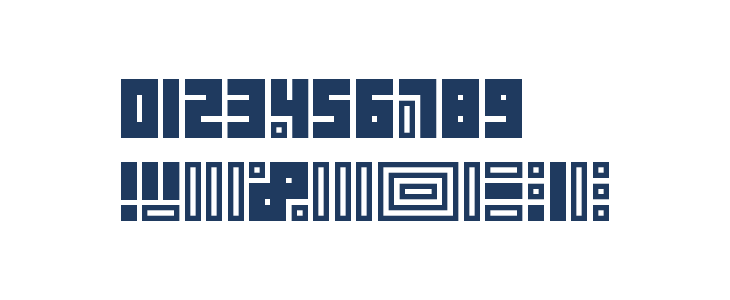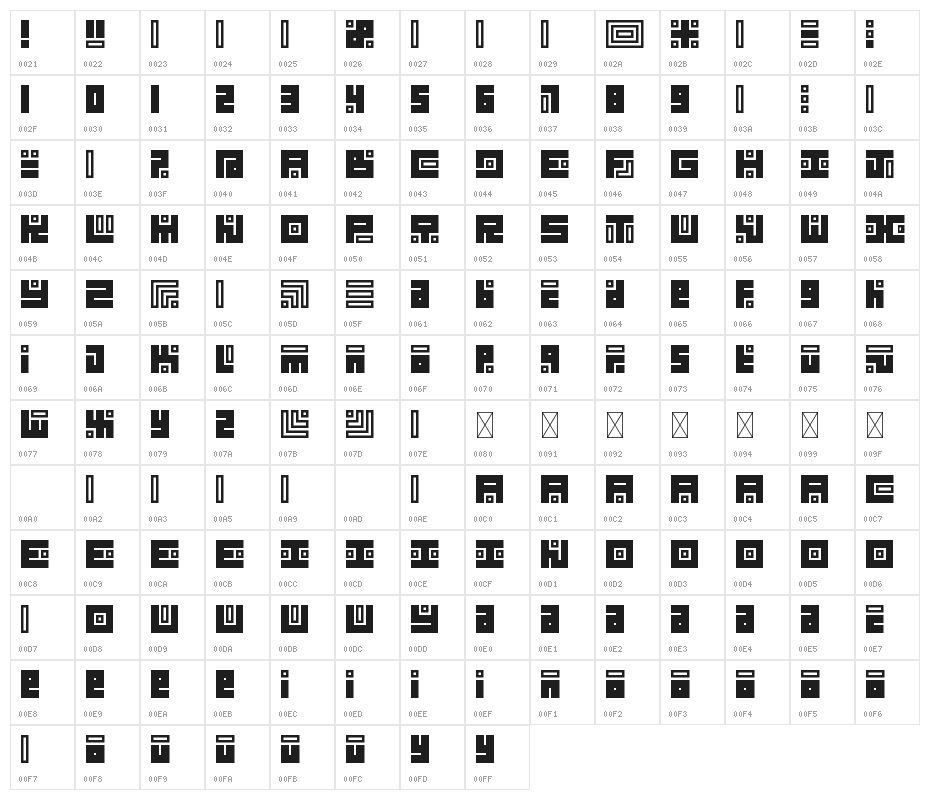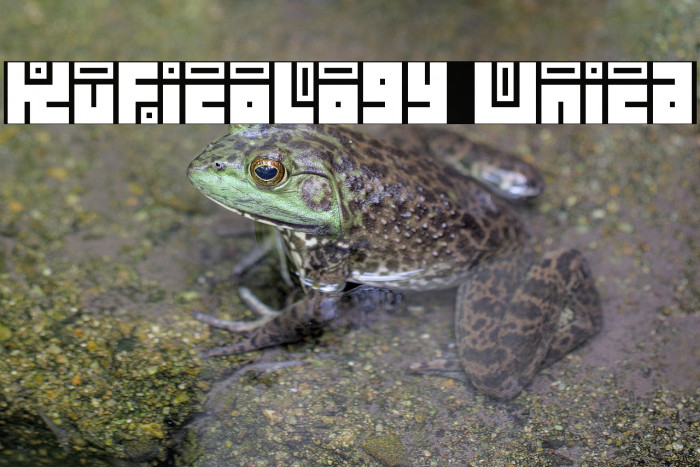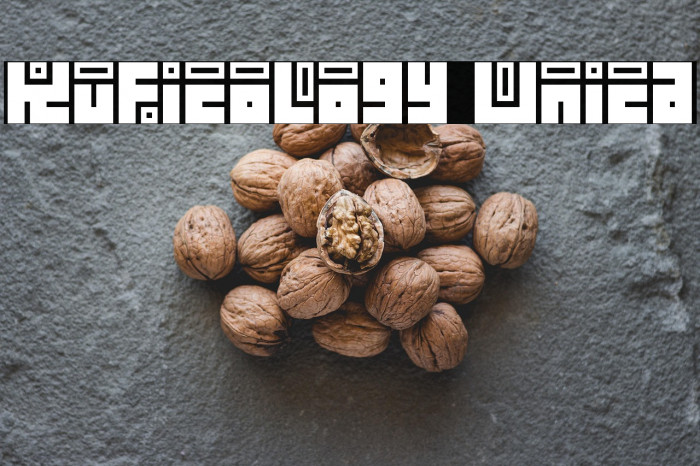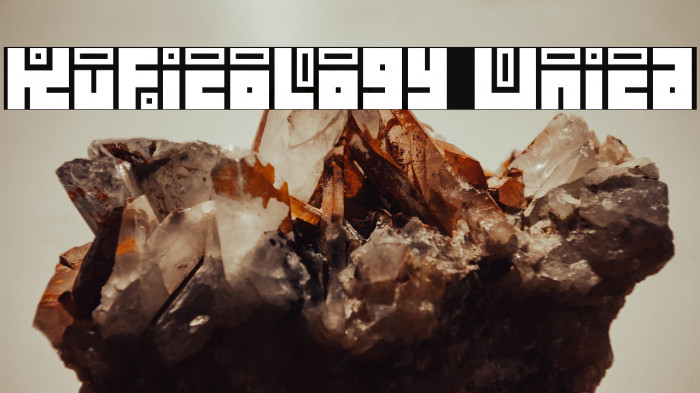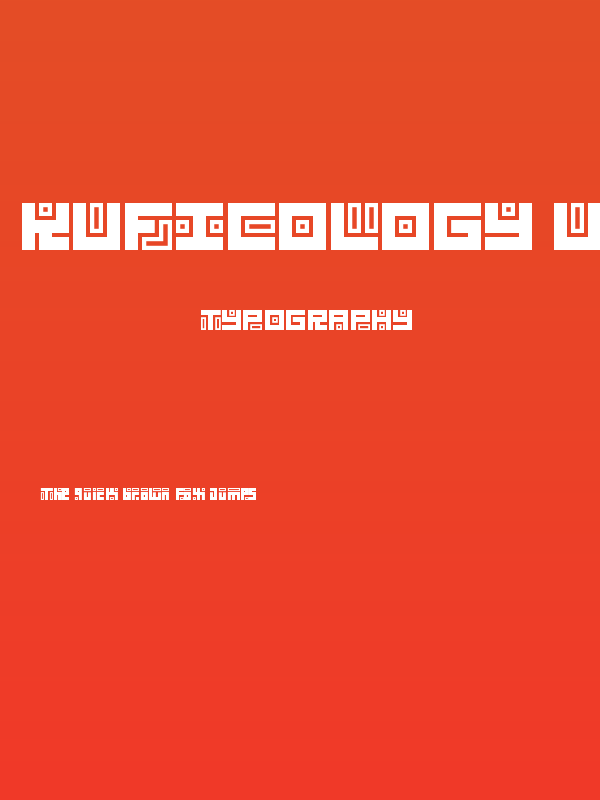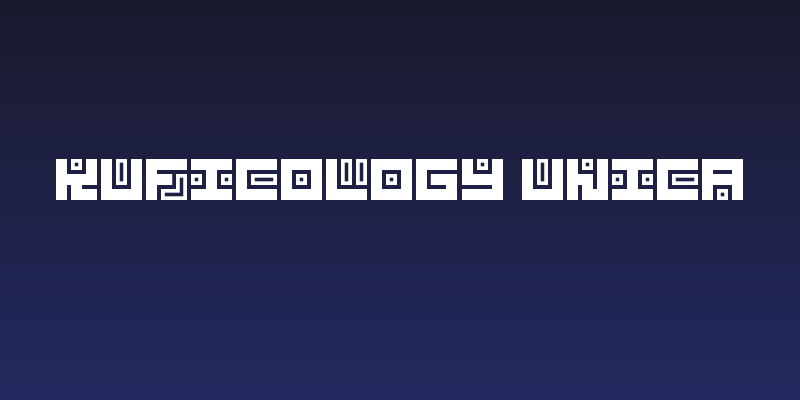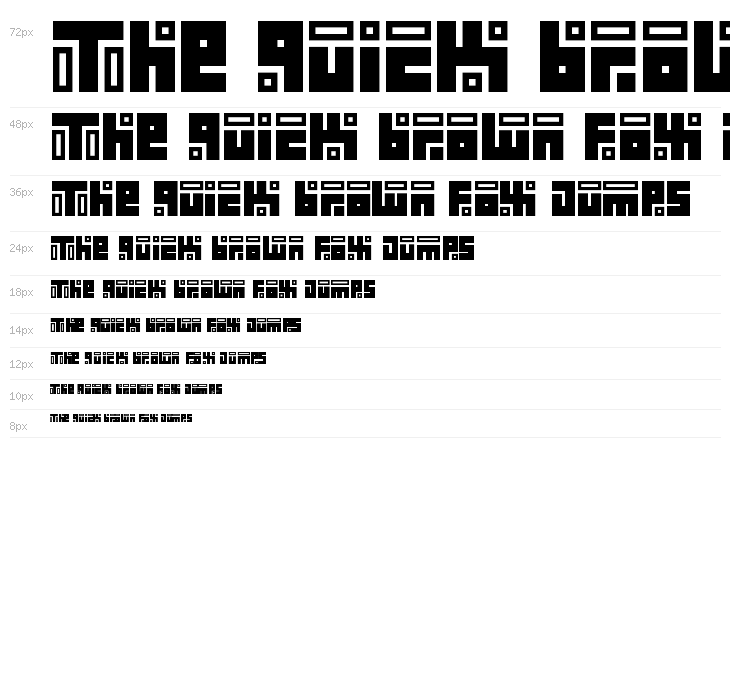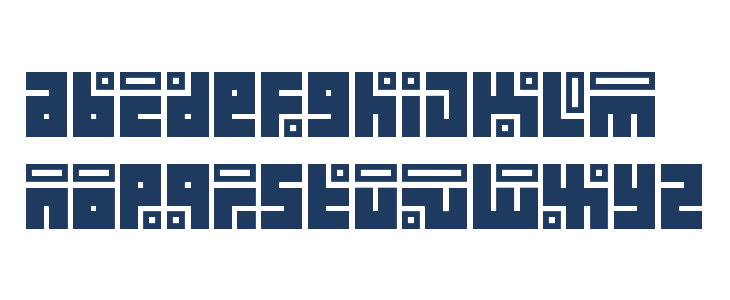
Kuficology Unica Font
Kuficology Unica Description
This font features a bold, geometric style with a strong emphasis on rectangular and square shapes. Each character is constructed with thick, uniform strokes, creating a highly structured and modern appearance. The design is reminiscent of ancient Kufic script, yet it incorporates a contemporary twist with its digital, almost pixelated look. The uppercase and lowercase letters maintain a consistent height, contributing to a monospaced feel, although the font is not strictly monospaced. Numbers and special characters follow the same design principles, ensuring a cohesive visual experience. The font's unique aesthetic makes it stand out, ideal for projects that require a bold and distinctive typeface.
| Proposed Projects | Ideal for branding, logos, posters, and digital art projects that require a bold and unique typeface. |